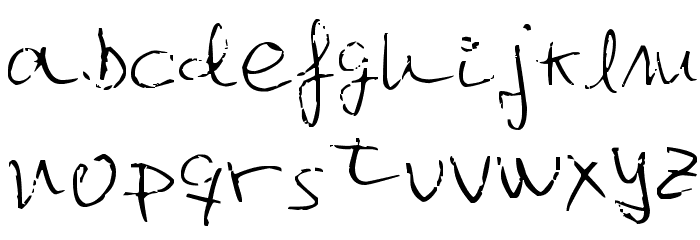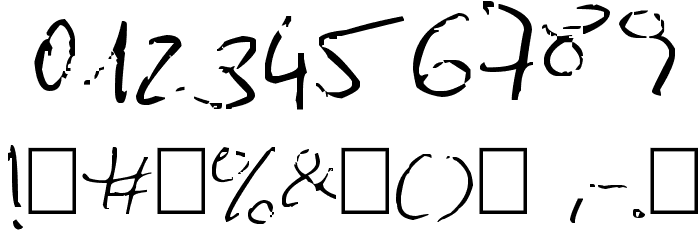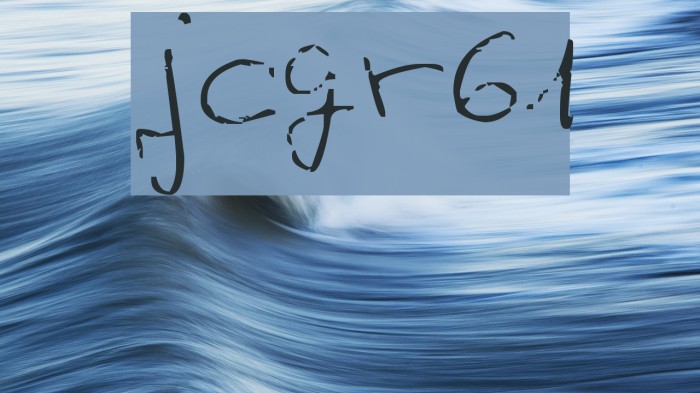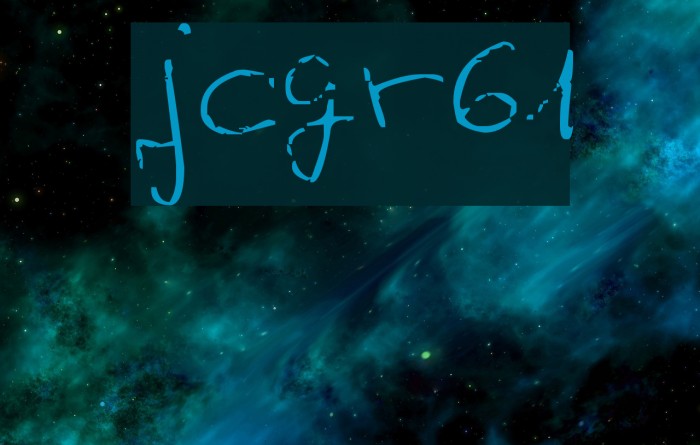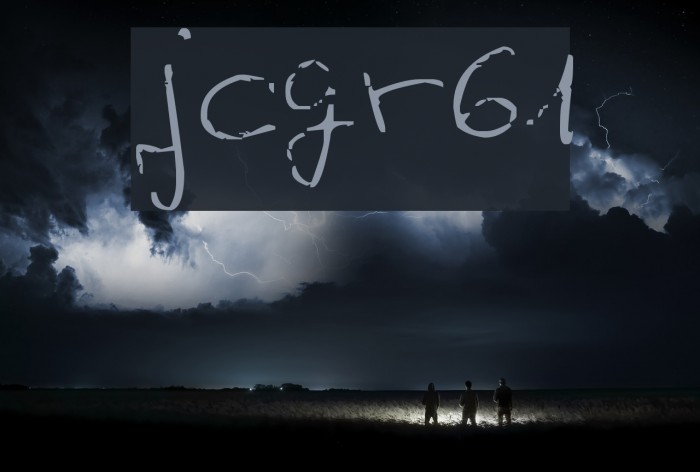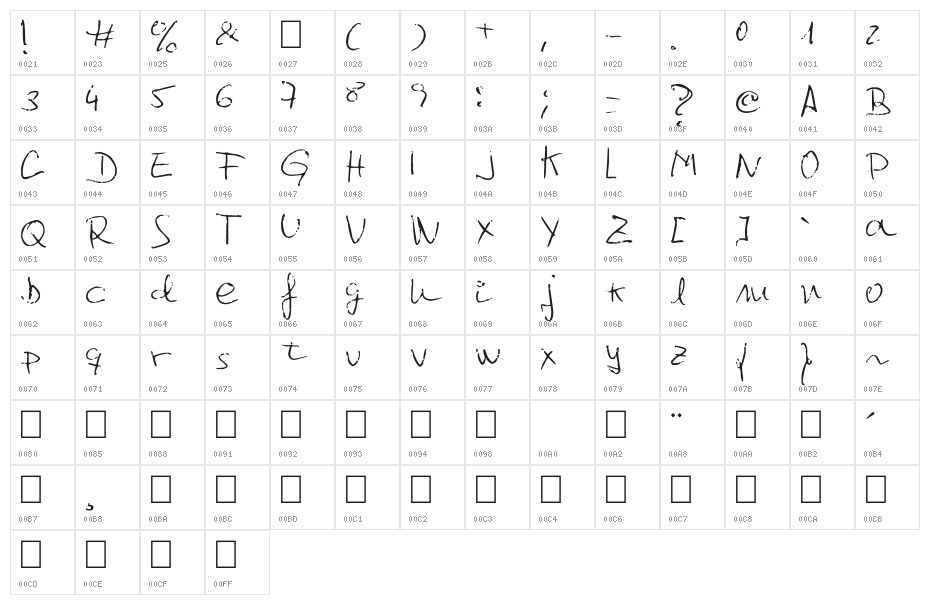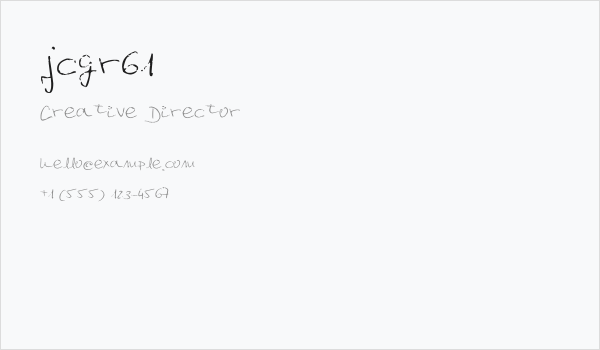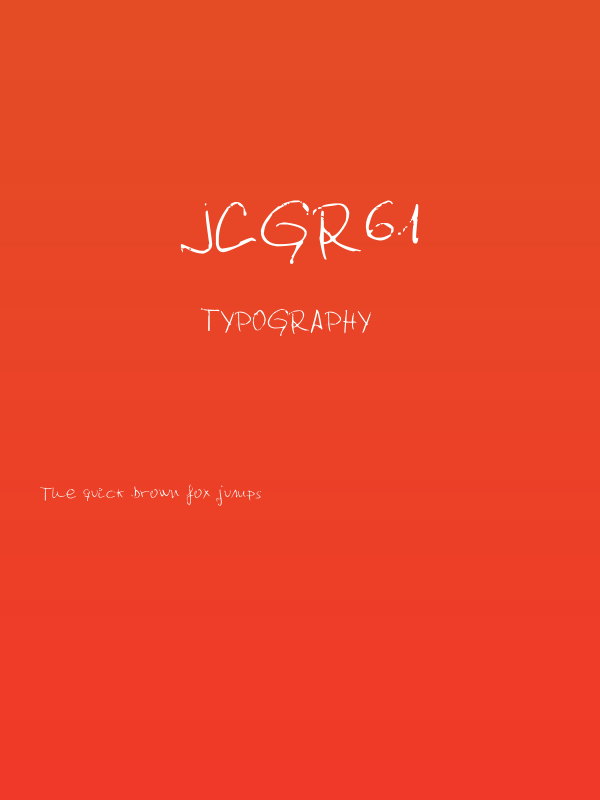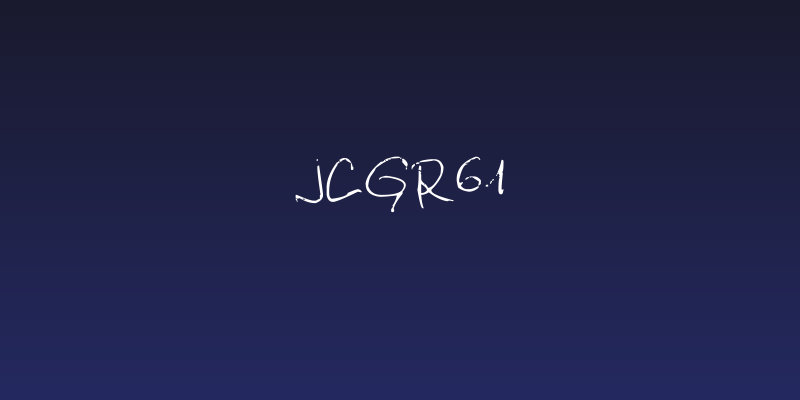
jcgr61 Font
This font features a distressed, handwritten style with a rough, textured appearance. The characters have an irregular, organic flow, giving them a casual and artistic feel. The uppercase and lowercase letters maintain a consistent style, with varying stroke widths that add to the font's dynamic and lively character. The numerals and special characters are designed with the same distressed effect, ensuring a cohesive look across all elements. This font is suitable for projects that require a personal, handcrafted touch, such as invitations, posters, and artistic branding.
A distressed, handwritten font with a rough, textured appearance.
- Proposed Projects: Ideal for invitations, posters, artistic branding, and any project needing a personal touch.
- Use Case: Headlines, Artistic projects, Branding